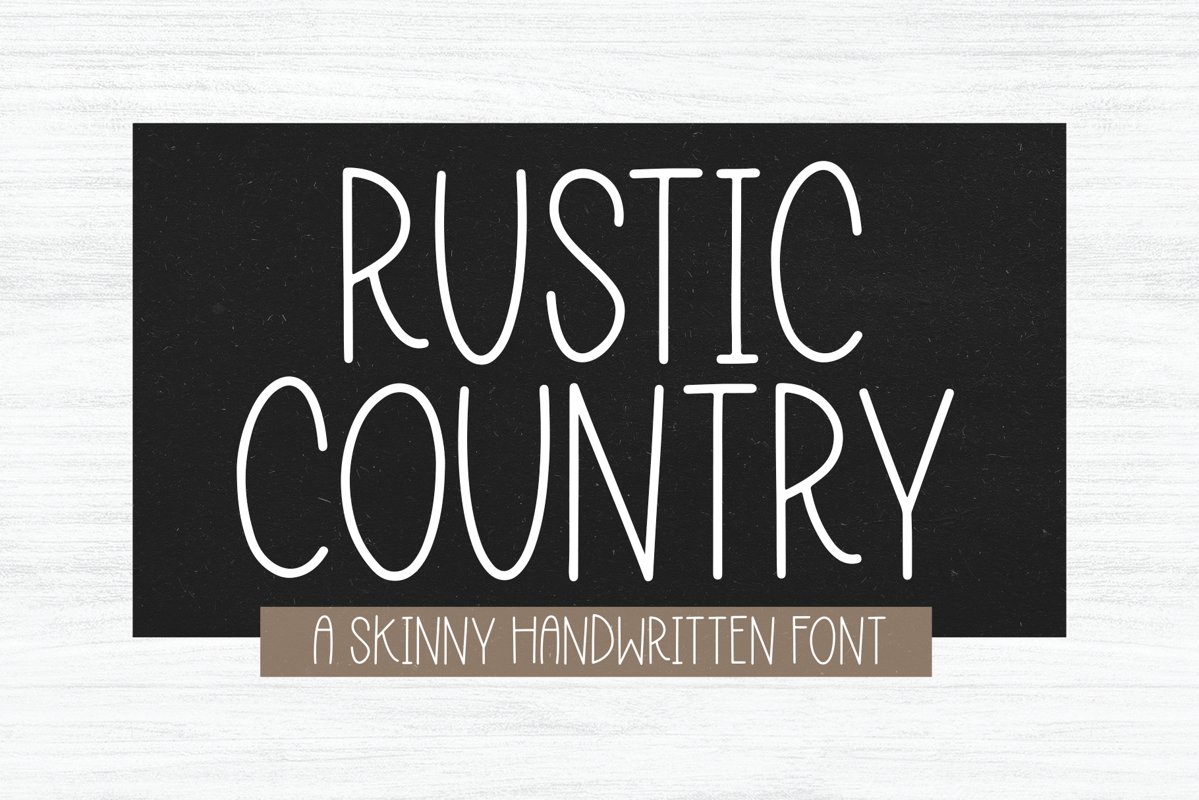
Rustic Country is a unique font perfect for all of your farmhouse designs!
This font is perfect for quotes, shirt designs, websites, branding, children's designs, svg designs, blogs, logos, invitations and more!